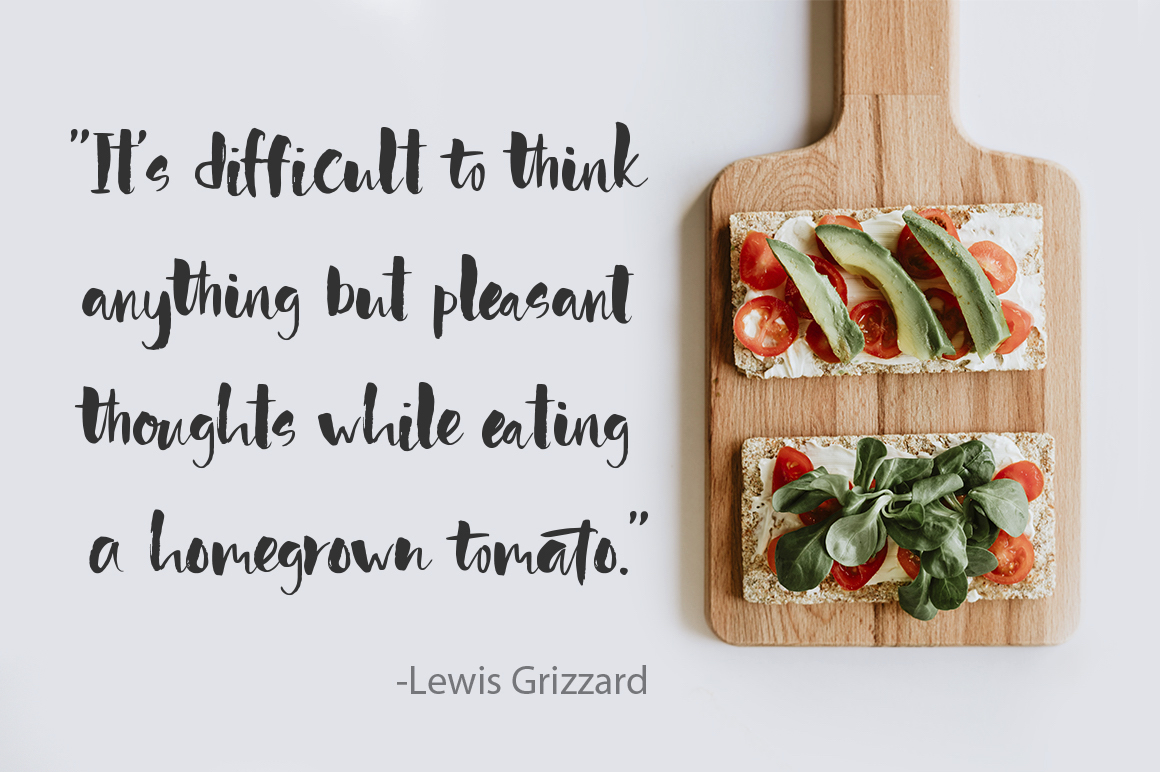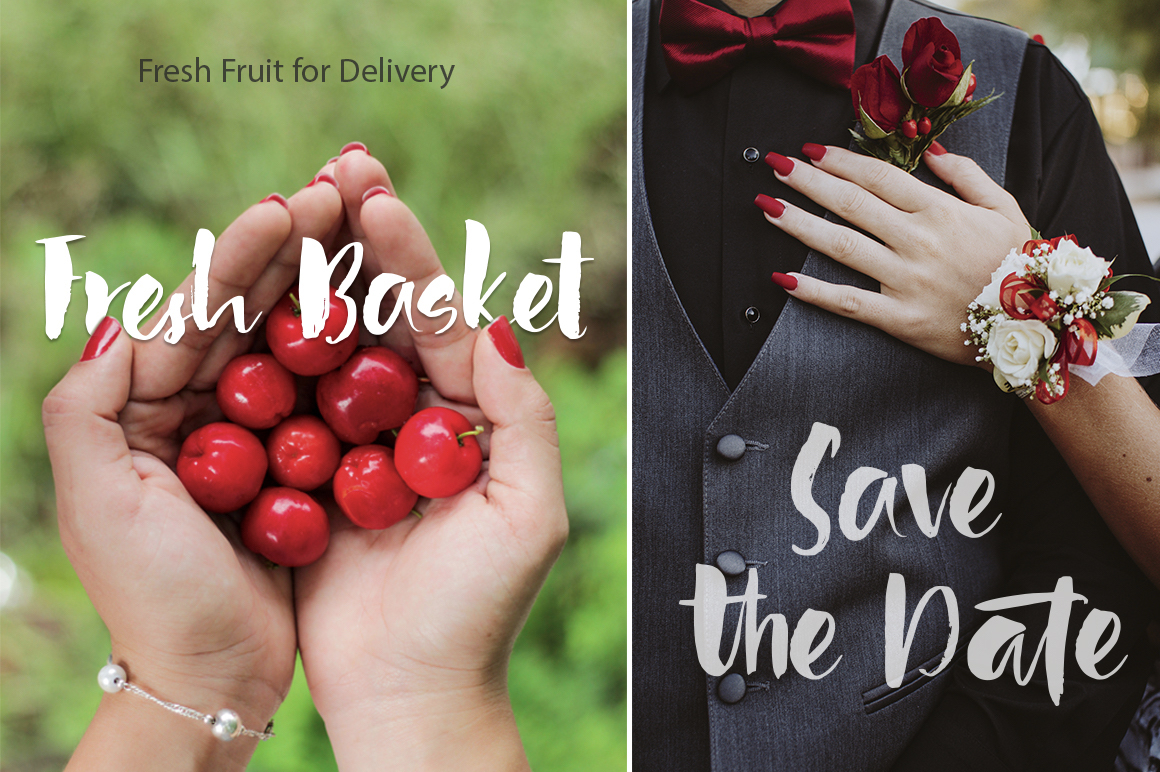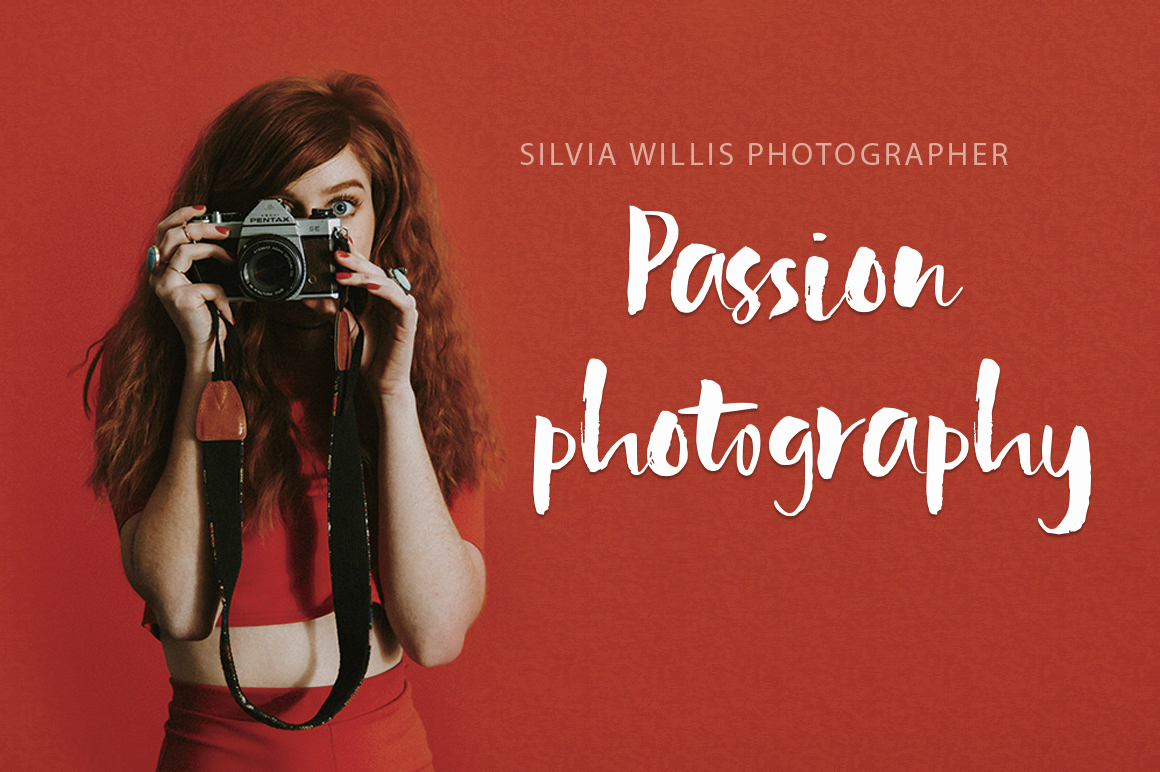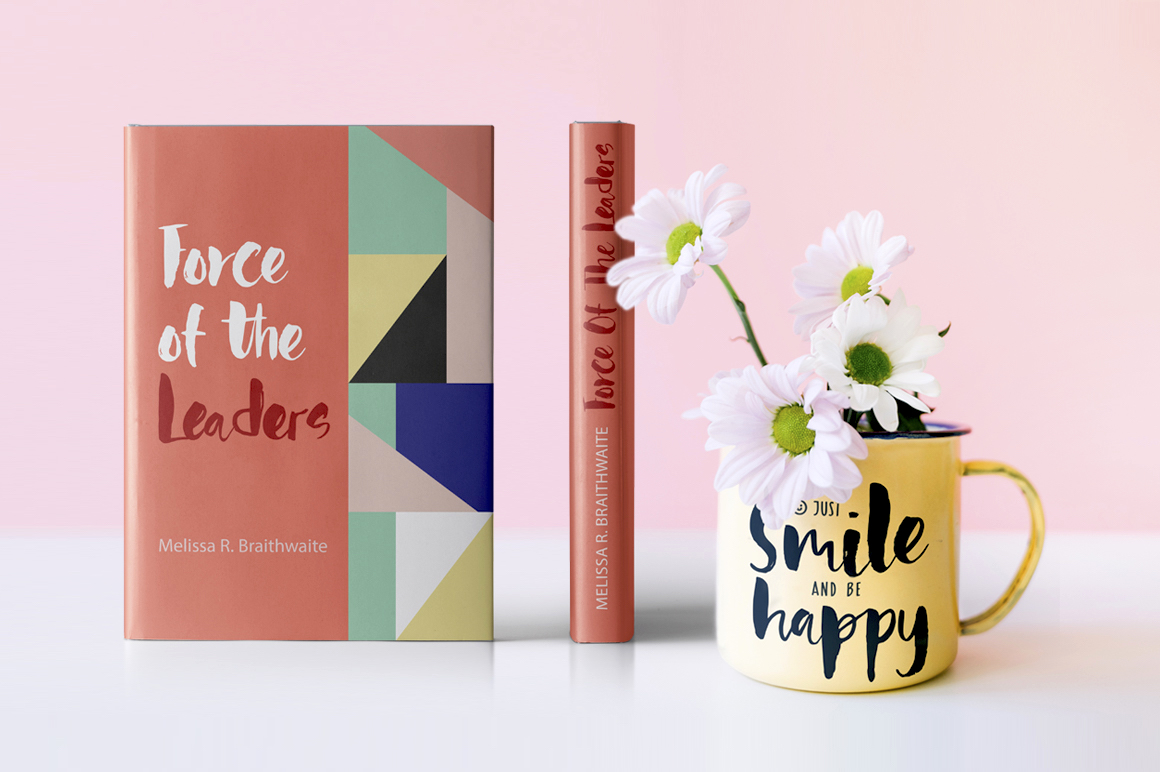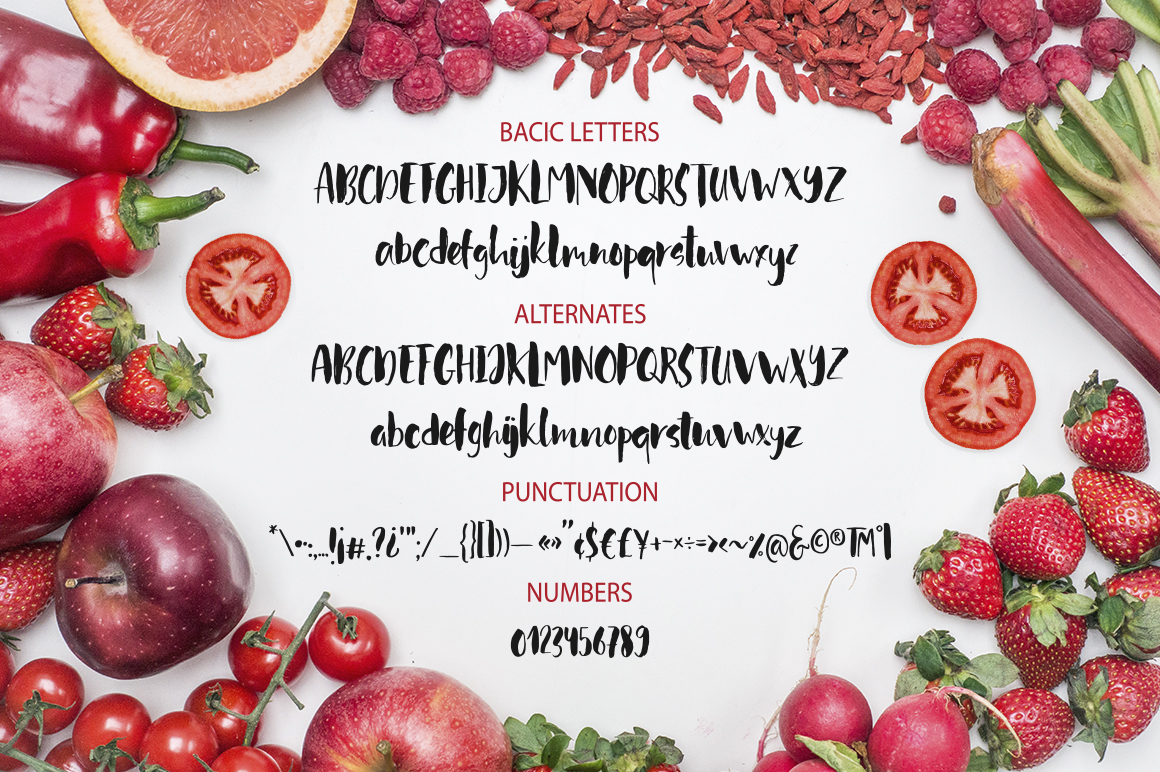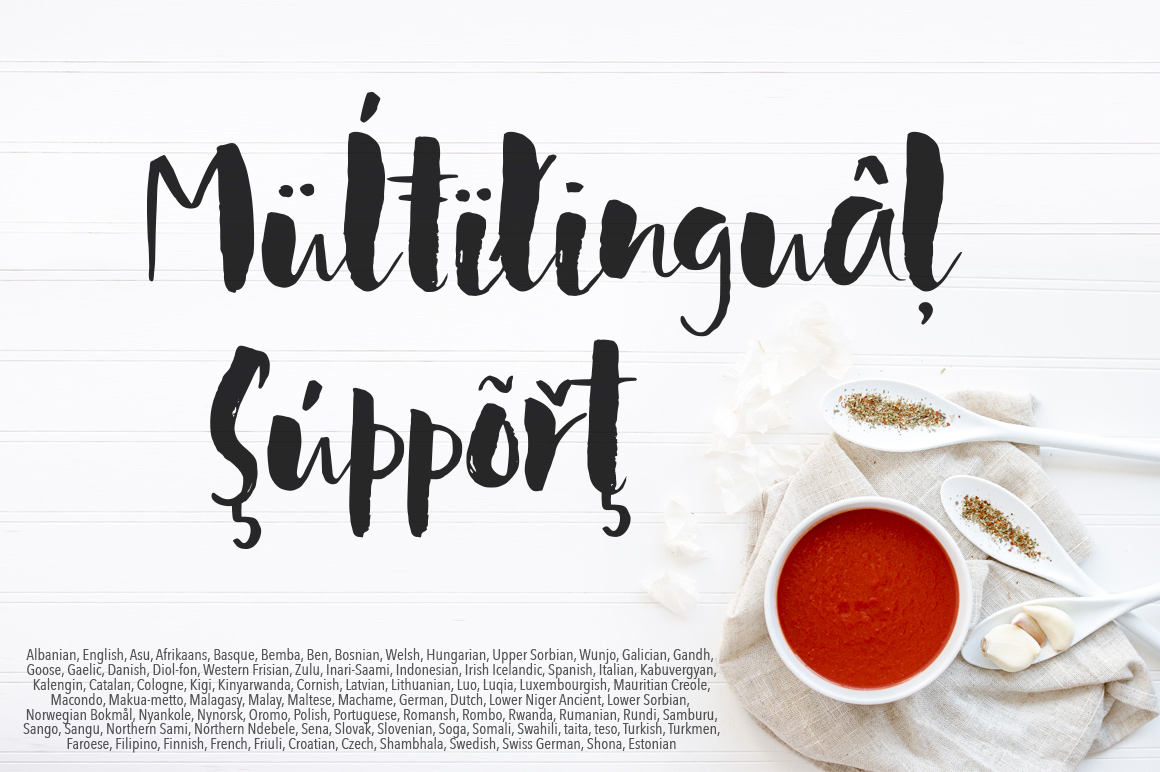
Introduction to Red Tomato Font
Remember that moment when you stumbled upon a quirky little gardening shop on a summer afternoon? The vibrant colors, the lush greenery, and the playful charm of the place instantly inspired you to create something beautiful. For designers, those moments are what spark our creativity and fuel our passion. And, for those looking to add a touch of whimsy to their next project, the Red Tomato Font is just the thing.
This delightful hand-drawn script font, created with brush and ink, boasts a dancing baseline and a beautiful hand-drawn texture that’s sure to transport your designs to a sunny garden oasis. Whether you’re working on a free download, a social media campaign, or a creative project that requires a high-quality design resource, the Red Tomato Font is an invaluable addition to your toolkit.
Key Features of Red Tomato Font
- Comes with a transparent background for easy customization
- Includes a range of glyphs and characters for versatile use
- Features a unique, modern design that is perfect for branding and advertising
Honest Review: Red Tomato Font
I recently had the chance to work with the Red Tomato Font, and I must say it’s been a delightful addition to my design resource collection. As a designer, I’m always on the lookout for unique and high-quality fonts that can elevate my creative projects.
- ✨ Unique character set: The Red Tomato Font offers a wide range of characters, making it perfect for projects that require a playful and whimsical touch.
- ✨ High-quality design: The font is meticulously crafted with attention to detail, resulting in a beautiful and professional appearance.
While the Red Tomato Font is a great addition to any design collection, I did encounter a few limitations.
- ⚠️ Limited font sizes: I found that the font doesn’t scale well at larger sizes, which can be a problem for certain design applications.
- ⚠️ No transparent background option: The font comes with a solid background, which can make it difficult to use on complex designs with transparent backgrounds.
Overall, I’m impressed with the Red Tomato Font and would definitely recommend it to designers working on creative projects that require a unique and playful touch.
The Red Tomato Font is ideal for various design projects, including logos, brochures, business cards, and social media graphics. It’s also suitable for headings, titles, and body text in creative projects.